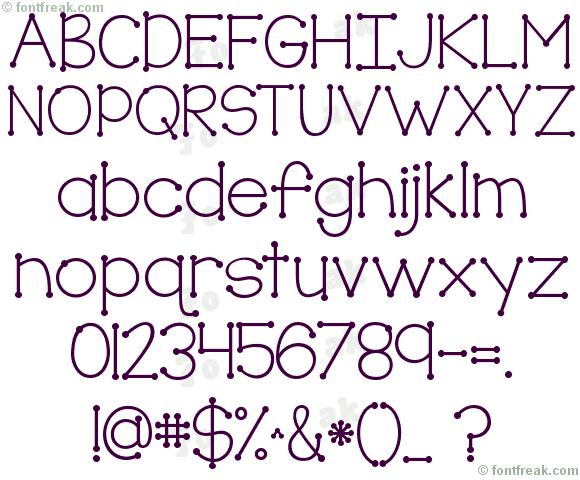
KG True Colors
About KG True Colors
KG True Colors, designed by Kimberly Geswein, is a delightful handwritten font that embodies a playful and casual style, making it perfect for a variety of creative projects. This font features a consistent stroke weight with a friendly, rounded appearance that brings warmth to any text. The characters are well-spaced, ensuring readability while maintaining an inviting aesthetic. With its charming quirks and slight variations in letterforms, KG True Colors adds a personal touch that stands out in any design.
This font is ideal for several specific use cases. It shines in crafting wedding invitations, where its heartfelt vibe can enhance the romantic theme. Additionally, KG True Colors is a great choice for children’s book covers, as it resonates well with a younger audience. Restaurant menus can also benefit from its approachable style, making dishes feel more inviting. Furthermore, small business marketing materials, such as flyers or social media posts, can leverage this font to convey a friendly brand identity.
The target audience for KG True Colors includes graphic designers, small business owners, and content creators who are looking for a unique font that adds character to their work. Its versatility allows it to be used across various mediums, from digital to print.
What sets KG True Colors apart is its ability to blend professionalism with a casual flair, making it suitable for both formal and informal applications. Its free availability as a freeware font means that anyone can access this unique typeface, making the KG True Colors font free download an attractive option for those looking to enhance their design projects without breaking the bank. This font not only elevates the visual appeal of any text but also brings a sense of joy and creativity to the forefront.